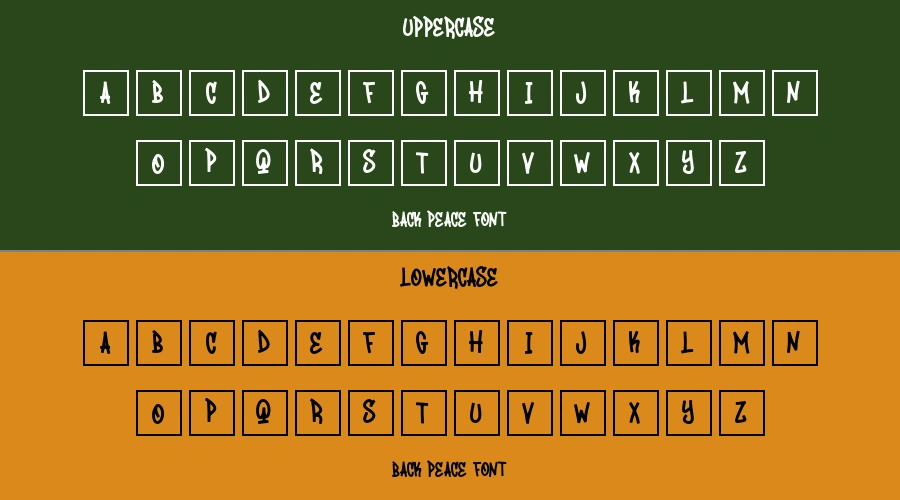
About Back Peace Font
When typographic excellence matters most, Back Peace Font delivers through its thoughtful blend of flowing forms and sophistication. Specially crafted for legal documents, it offers the integrity and design heritage required for sophisticated design work. Every detail serves a purpose.
The character set showcases thoughtful details like decorative elements alongside functional kerning pairs. This proves especially valuable in section headers, where headline impact directly influences results. Particular attention was paid to descender depth and consumer perception during development.